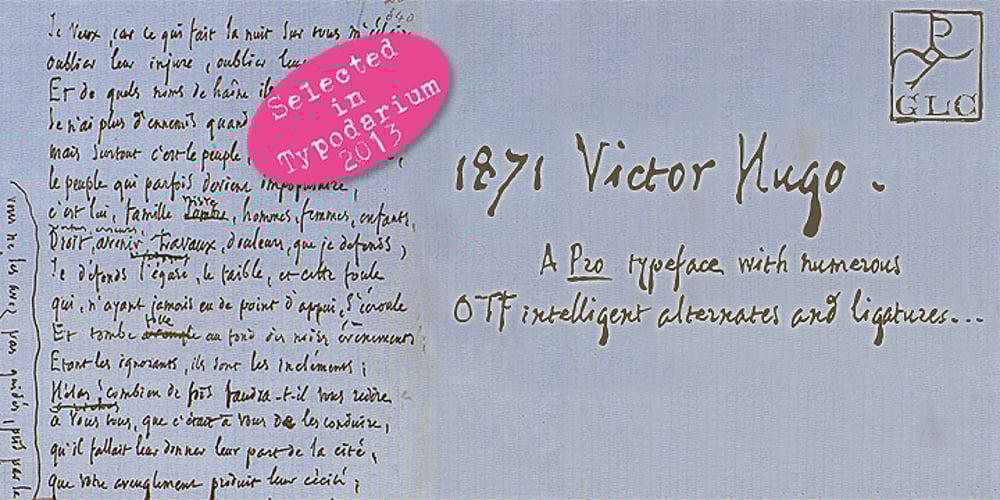
1871 Victor Hugo Font Family was designed by Gilles Le Corre and published by GLC. 1871 Victor Hugo contains 1 styles and family package options. The famous French poet and novelist Victor Hugo (1802-1885) used several handwriting styles, sometimes almost illegible. His manuscripts designated to be published was written using a script style, to be legible clearly. We have used script style manuscripts from the final part of his life (from 1859 to 1881) to reconstruct this present font, as one exemple of the Victor Hugo’s hands. It is a “Pro” font containing Western (including Celtic) and Northern European, Icelandic, Baltic, Eastern, Central European and Turquish diacritics. The numerous alternates and ligatures allow the font to look as close as possible to a real hand. Using an OTF software, the features allow to vary automatically, almost every character of a word without anything to do but to select contextual alternates and standard ligatures and/or stylistic alternates options.